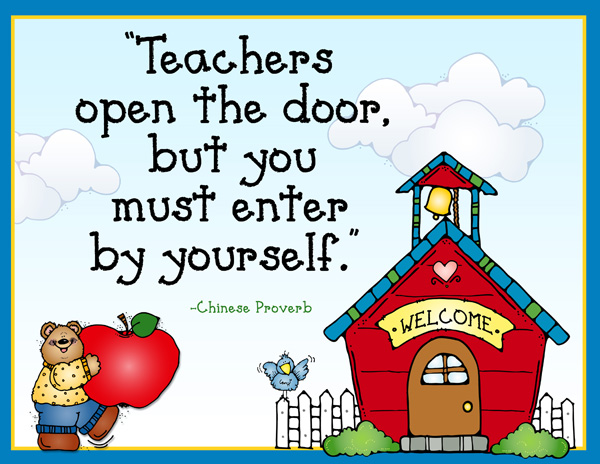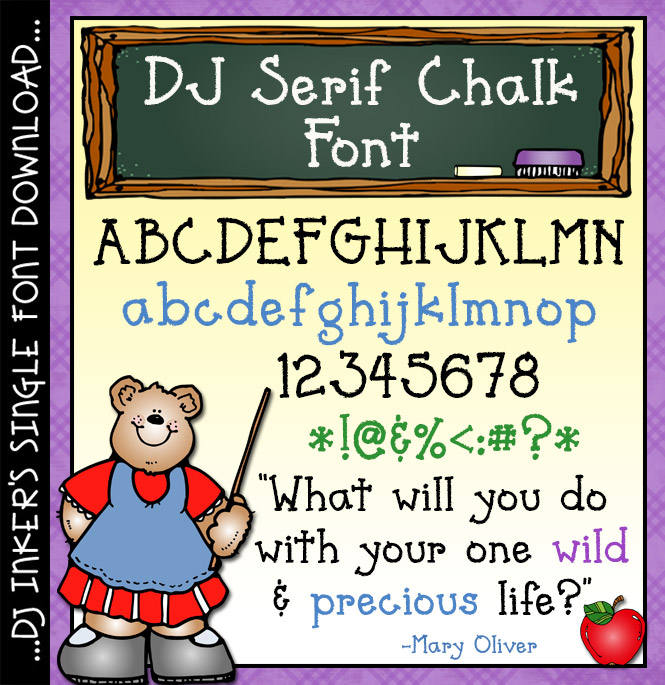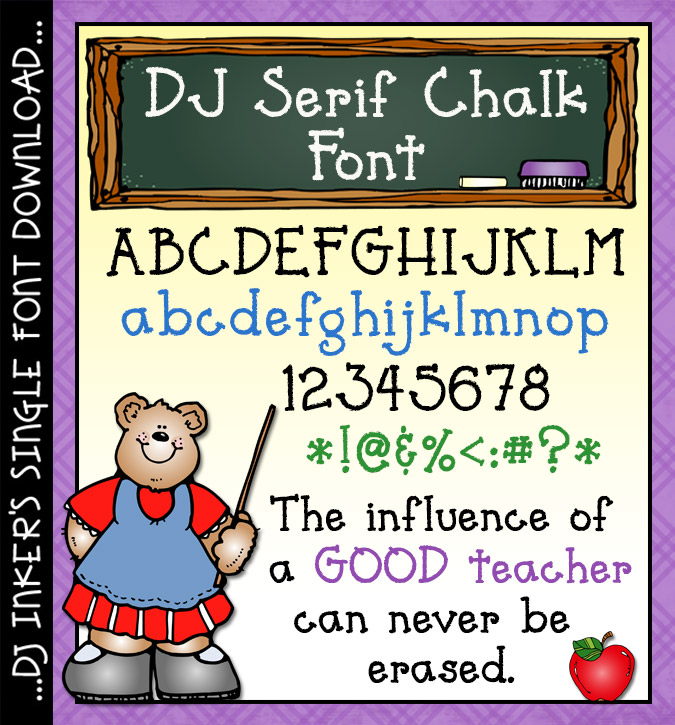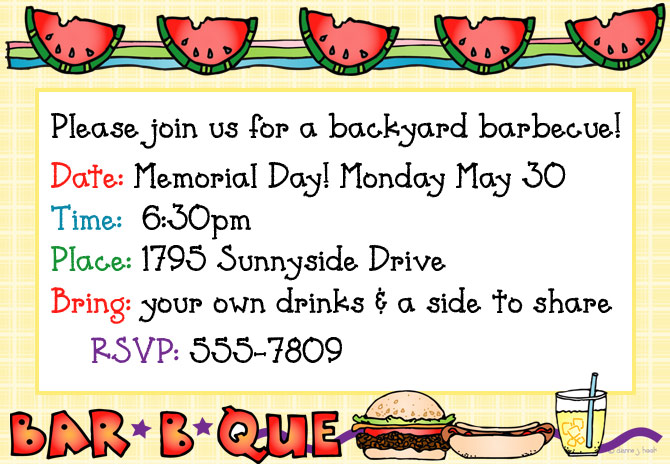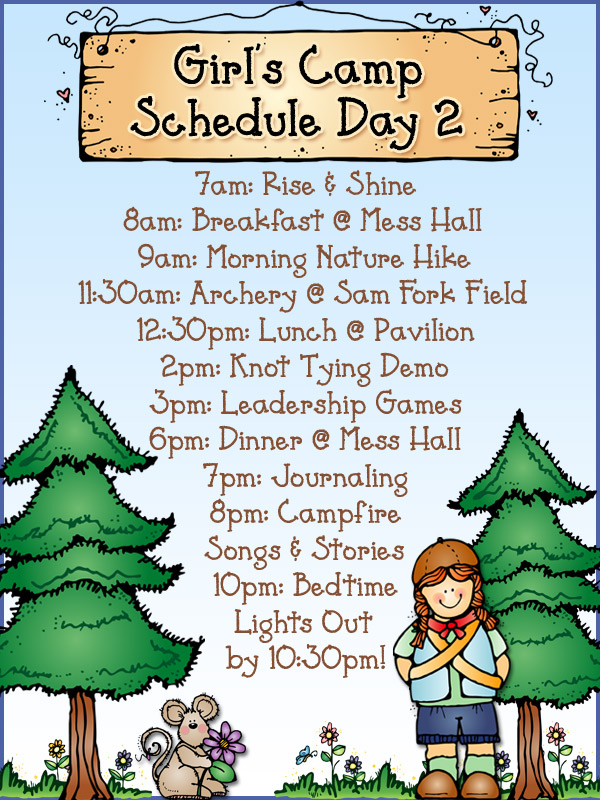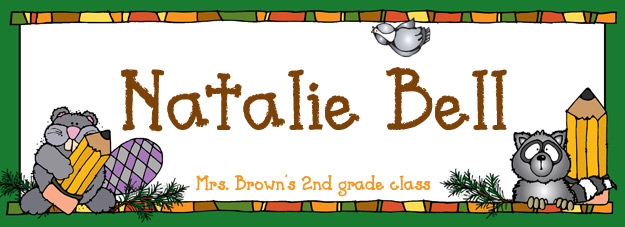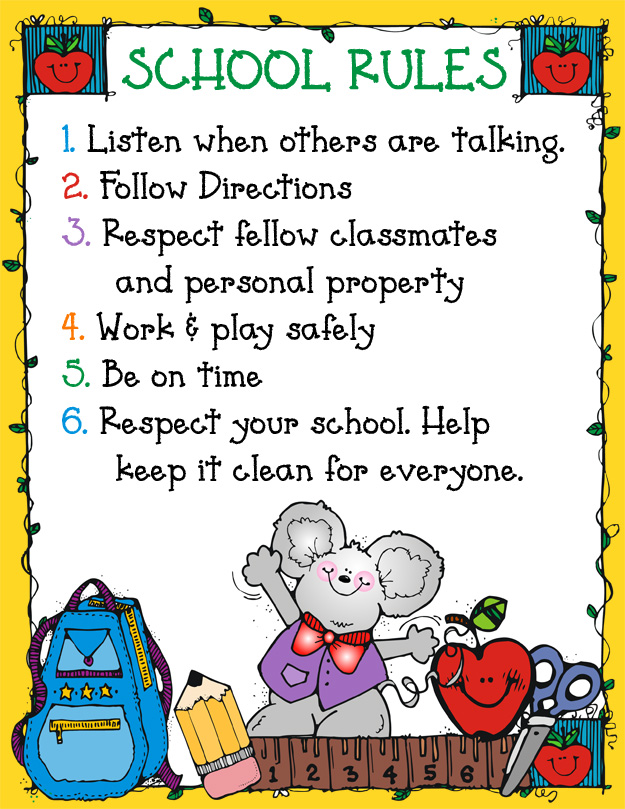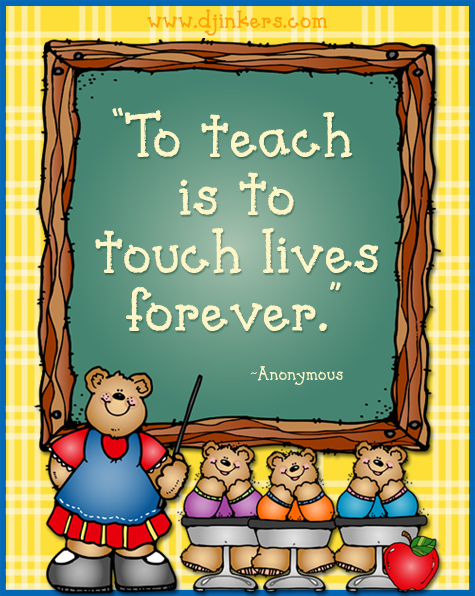
DJ Serif Chalk Font Download
Looking for a font with chalkboard texture and lots of smiles? DJ Serif Chalk will be just the thing! This easy-to-read lettering is perfect for school projects, newsletters, instructions and text in any size or color. It's especially fun in white on a dark chalkboard background. :) Maybe you'll chalk this one up as a favorite in your collection!